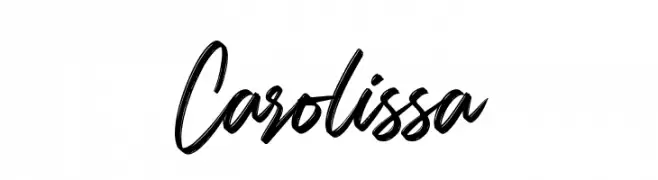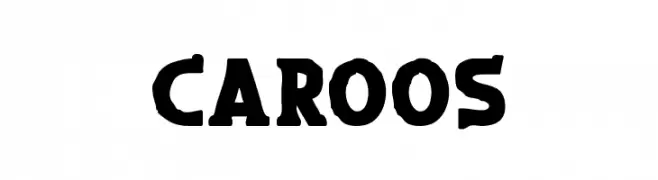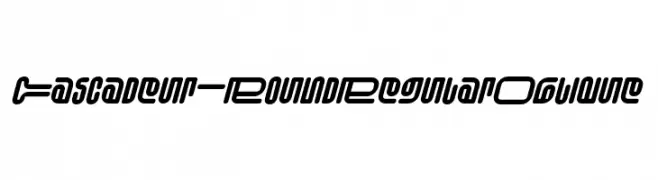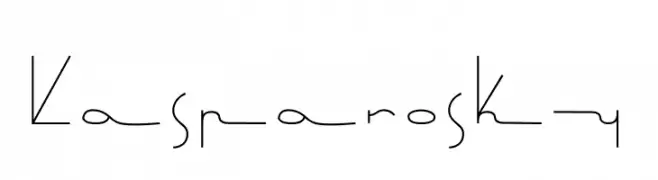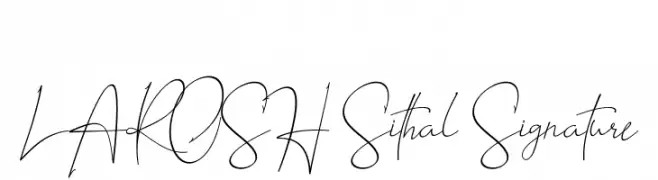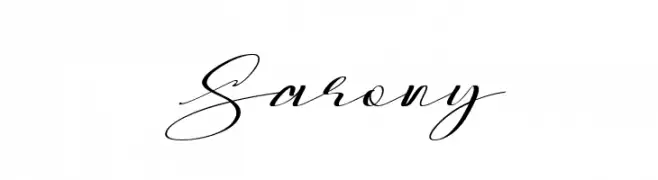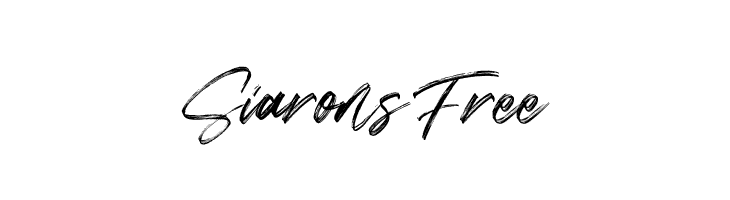
A sophisticated script font with elegant, flowing cursive strokes.
A modern, geometric font with sharp angles and a minimalist style.
An elegant, flowing script font with a natural handwriting style.
A bold, cursive handwritten font with dynamic and expressive strokes.
A dynamic, brush-style font with bold, fluid strokes and a hand-drawn appearance.
Bold, high-contrast serif font with a modern yet classic feel.
An elegant script font with fluid, cursive strokes and decorative swashes.
A lively and expressive script font with a handwritten feel.
A playful, cursive font with a whimsical, handwritten style.
A futuristic, rounded, and oblique font with a dynamic and modern style.